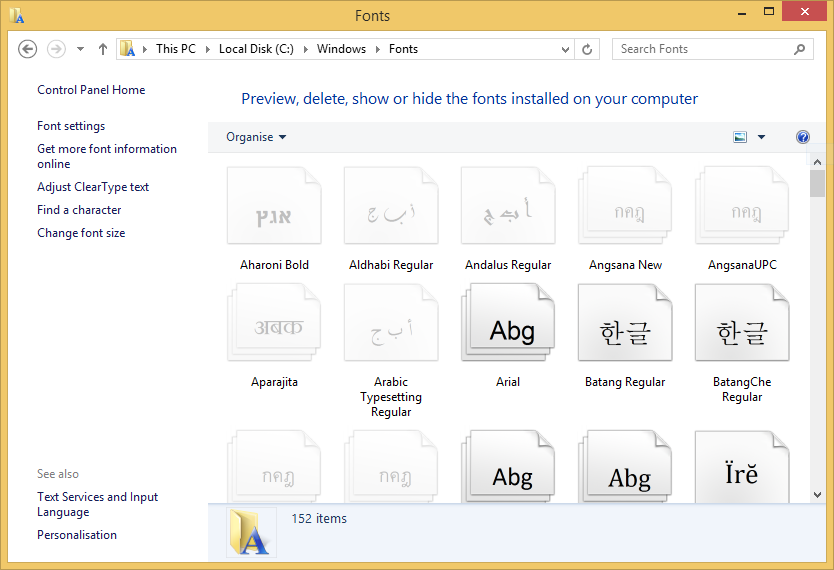
This article explains about fonts for the GraphicsWindow object in Microsoft Small Basic Online (SBO).
What is a Font?
A Font is a designed character set. In Windows, many programs have the ability to change fonts. Many fonts are installed into C:\Windows\Fonts folder. For example, this article uses "Segoe UI" font.
There are some common design patterns for fonts. Serif is a small line attached to the end of a stroke in a letter. Serif fonts have serif. Sans Serif fonts don't have serif.
There are two types of character width used in fonts. One is Fixed Pitch fonts that have a same character width. The other is Proportional fonts that have different width for each character.
You can see the fonts installed in your Windows system at C:\Windows\Fonts folder with File Explorer.
What is a Glyph?
Glyph is a shape of each character.
Font Properties
There are four font properties in GraphicsWindow.
FontBold
If GraphicsWindow.FontBold is "True", font characters become thick. Default GraphicsWindow.FontBold value is "True".
FontItalic
If GraphicsWindow.FontItalic is "True", font characters become slant. Default GraphicsWindow.FontItalic value is "False".
FontName
GraphicsWindow.FontName contains font face name. "Roboto" is the default font name in SBO.
FontSize
GraphicsWindow.FontSize means the height [pixels] of characters. FontSize means the height between the top line and baseline. You can recognize this with a sample program Font Sample for SBO 0.2 described below.
Default font size is 12 [pixels].
Available Fonts
Small Basic Online has only following fonts. Default font is Roboto. If other font name is set to GraphicsWindow.FontName, previous font will be used.
Font Name | Arias | Serif | Fixed Pitch |
Arial | Helvetica | ||
Consolas | ✔ | ||
Courier New | Courier | ✔ | ✔ |
Roboto | ✔ | ||
Times New Roman | Times | ✔ |
Sample Programs
Fonts for SBO 0.1
This program shows available 8 fonts.
Fonts Sample for SBO 0.2
You can change font properties with this program. Also, you can measure the size of fonts with a ruler. The ruler can be shown in Chrome browser. A checkbox can be toggled with [Bold] or [Italic] button.